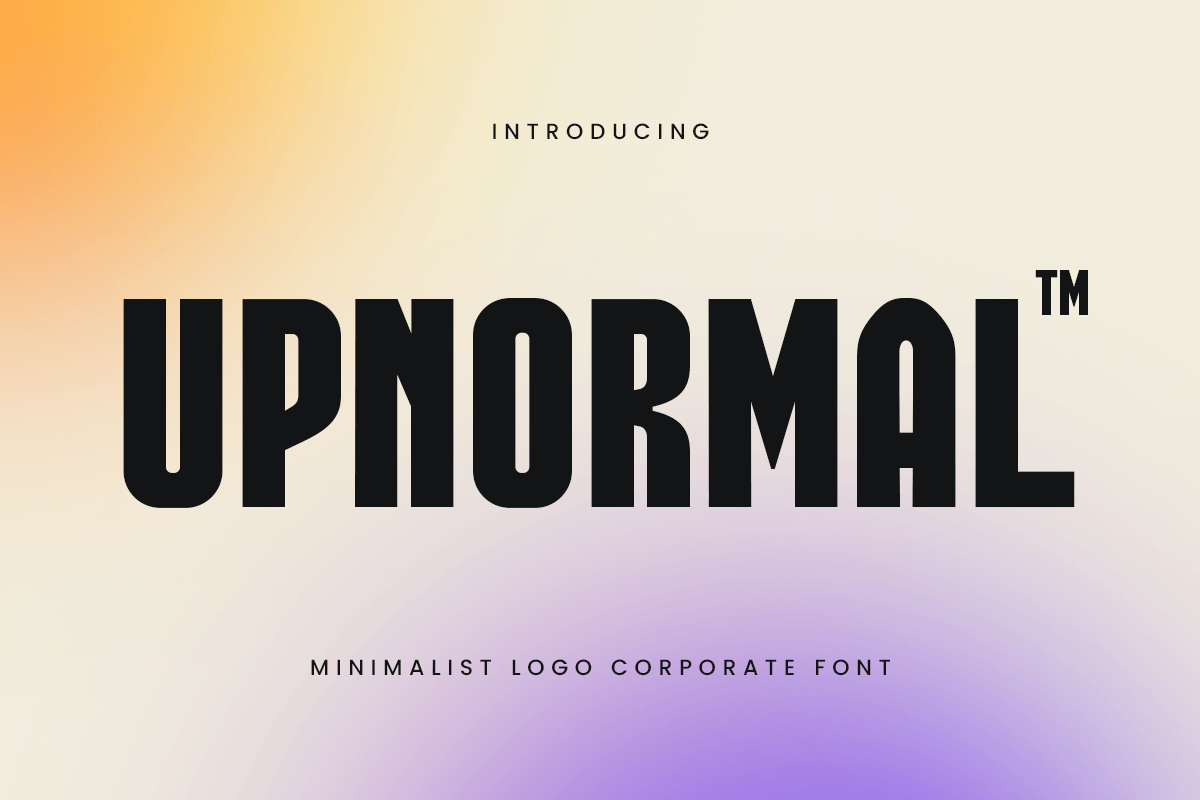
Upnormal
-Minimalist FontIntroducing Upnormal, a font that blends condensed structure with minimalist aesthetics to bring sleek simplicity to your designs. Perfect for modern and clean layouts, Upnormal ensures your work stands out with elegance and clarity.
The Story Behind Upnormal:
Upnormal was inspired by the beauty of minimalism and the need for clarity in modern design. Picture a bustling urban environment where clarity and simplicity are paramount. This font captures that essence, providing a refined and streamlined look. Upnormal is ideal for designers who seek to create clean, professional, and stylish branding materials.
Upnormal Font Features:
Condensed Design: Sleek and space-saving, perfect for minimalist and modern aesthetics.
Minimalist Aesthetics: Clean lines and simple forms that convey elegance and clarity.
Versatile Usage: Ideal for logos, branding, headlines, and minimalist design projects.
High Legibility: Clear and readable, ensuring your message is communicated effectively.
Elegant Simplicity: Combines modern style with professional appeal.
Inspirational Previews: Includes sample designs to spark your creativity.
Perfect For:
Modern Branding: Create sleek and memorable logos for contemporary brands.
Minimalist Layouts: Design clean and elegant layouts for websites and print materials.
Professional Materials: Develop stylish business cards, letterheads, and office stationery.
Marketing and Advertising: Enhance brochures, flyers, and advertisements with minimalist flair.
With Upnormal, your designs will achieve a new level of modern simplicity and elegance. Whether you're working on branding, minimalist layouts, or professional materials, Upnormal provides the perfect blend of condensed design and minimalist aesthetics. Elevate your design projects with Upnormal and showcase your creativity with refined simplicity.